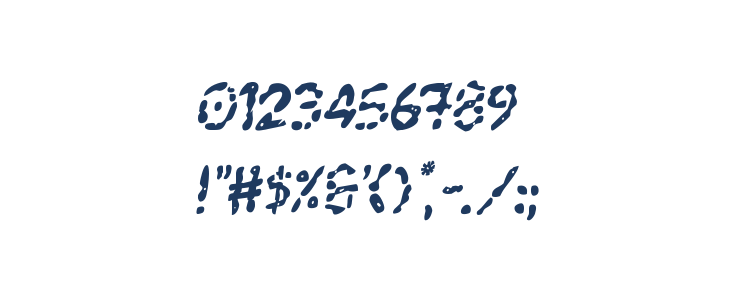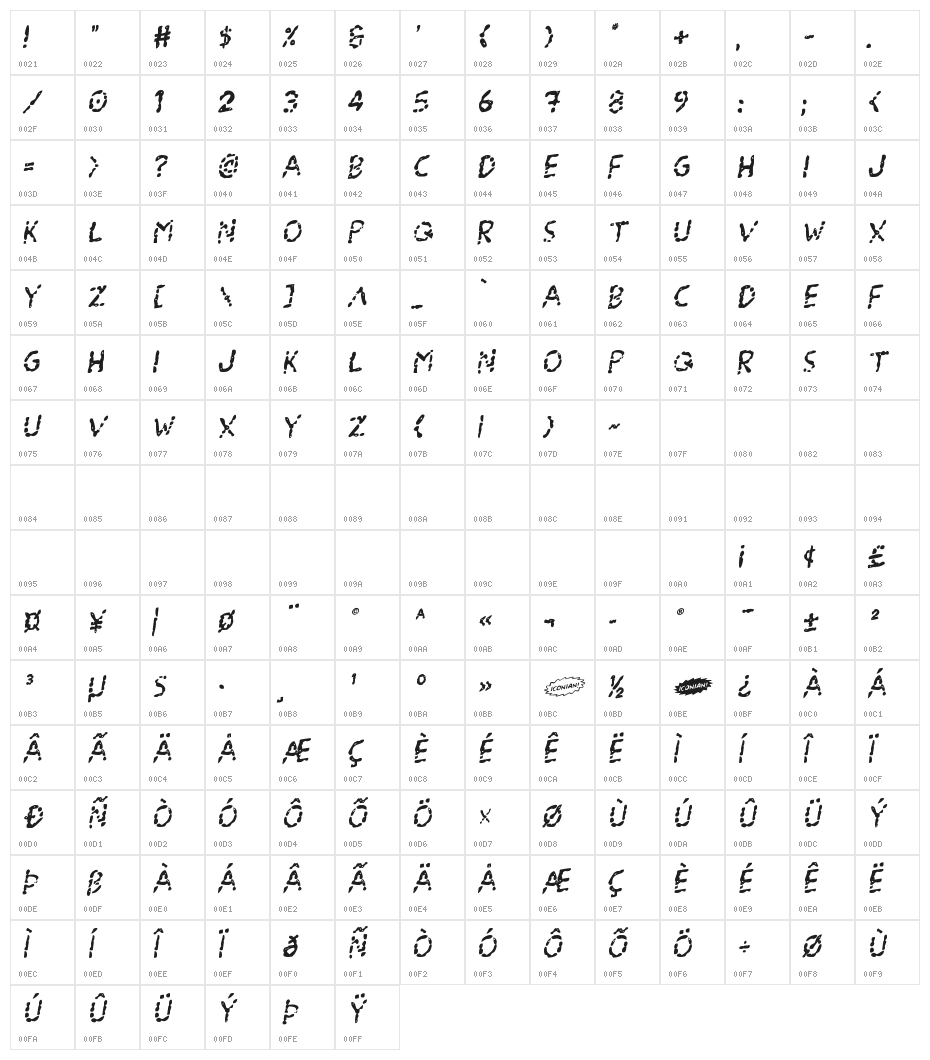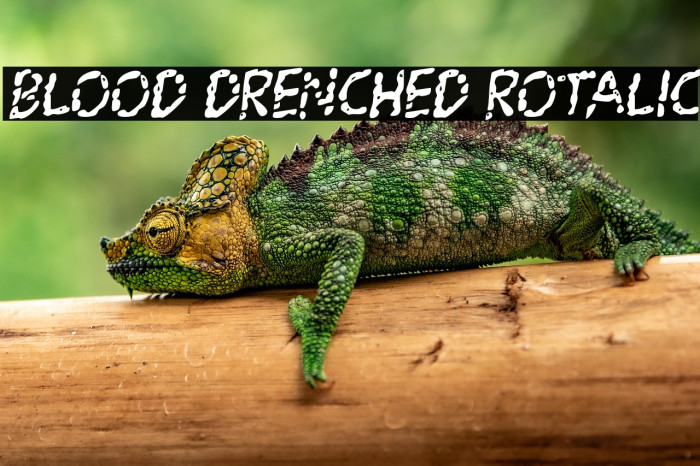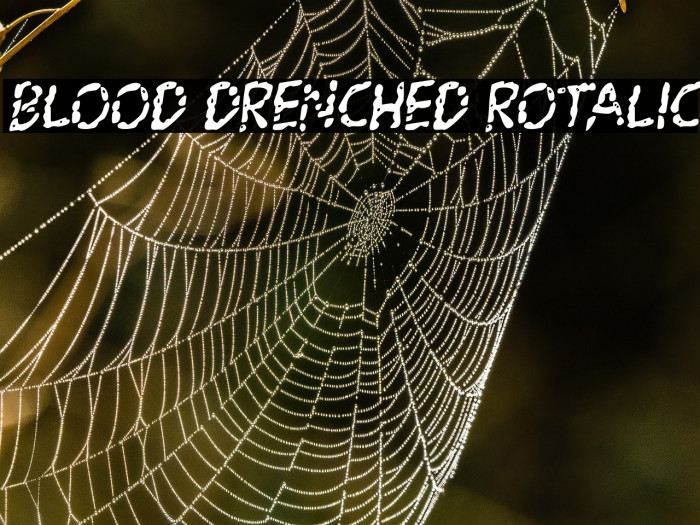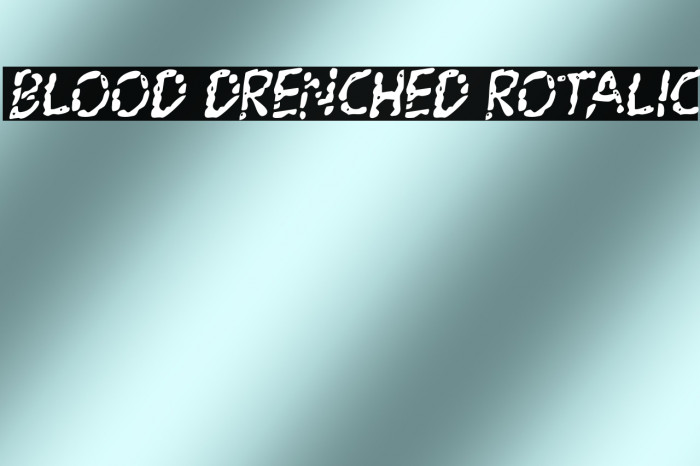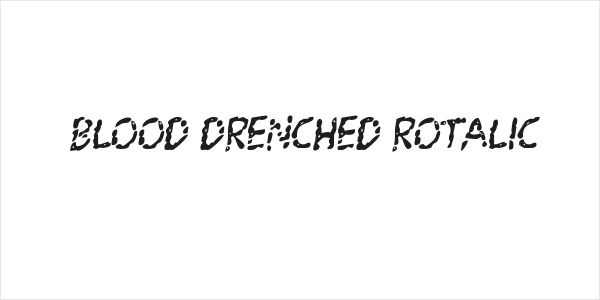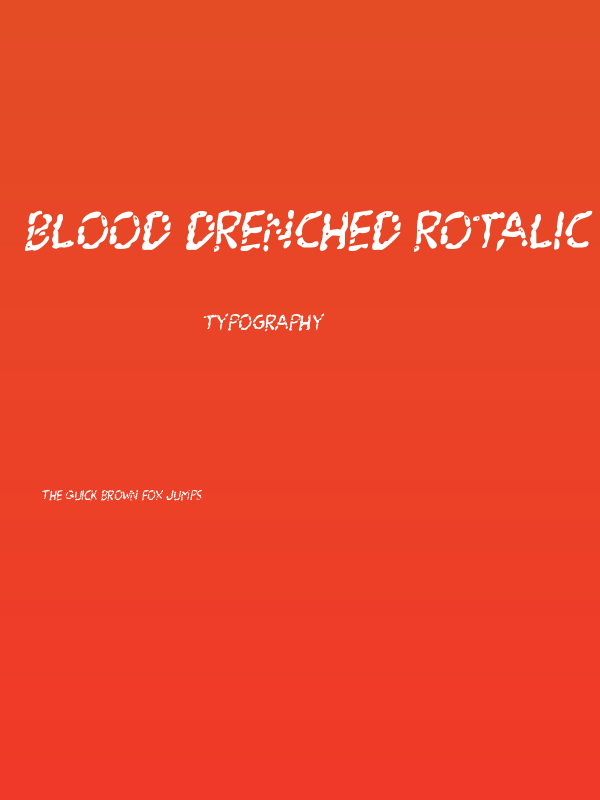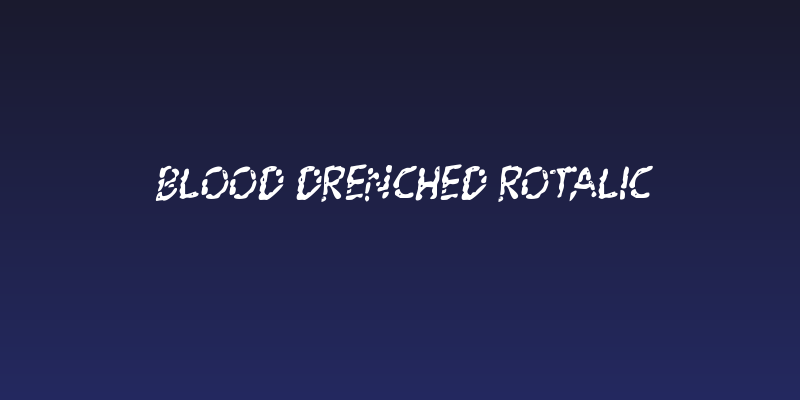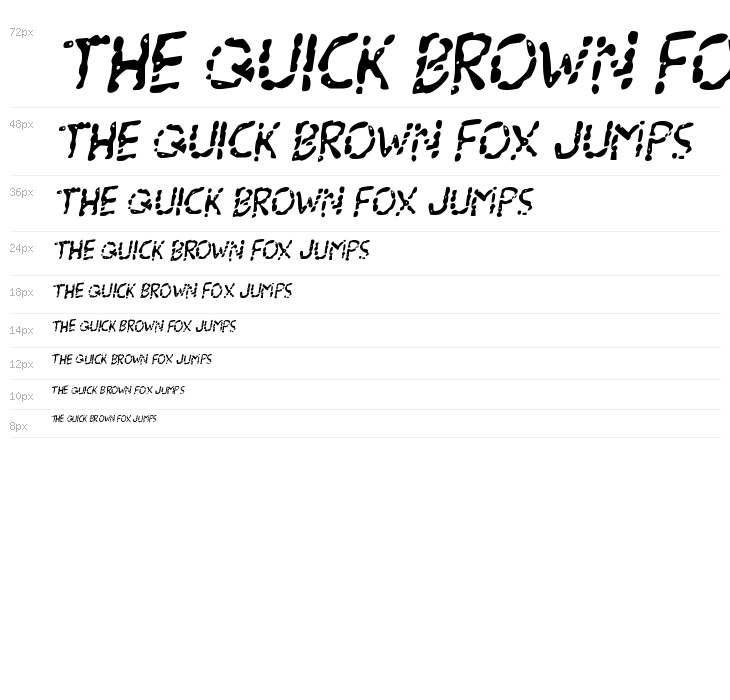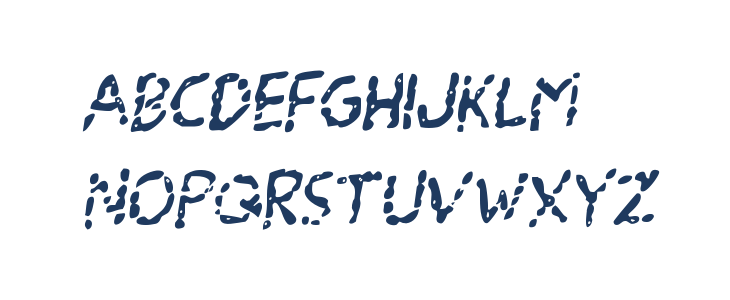
Blood Drenched Rotalic Font
Blood Drenched Rotalic Description
This font features a dramatic and intense design, reminiscent of dripping or splattered liquid, creating a sense of movement and chaos. The characters are bold and irregular, with uneven edges and varying thicknesses that contribute to its dynamic appearance. This style evokes a sense of horror or suspense, making it ideal for themes that require a touch of the macabre or eerie. The font's unique texture and form make it stand out, ensuring that any text using it will capture attention immediately.
Use CaseHeadlines, Posters, Logos
Proposed ProjectsIdeal for horror movie posters, Halloween event flyers, or any project needing a dramatic, eerie touch.